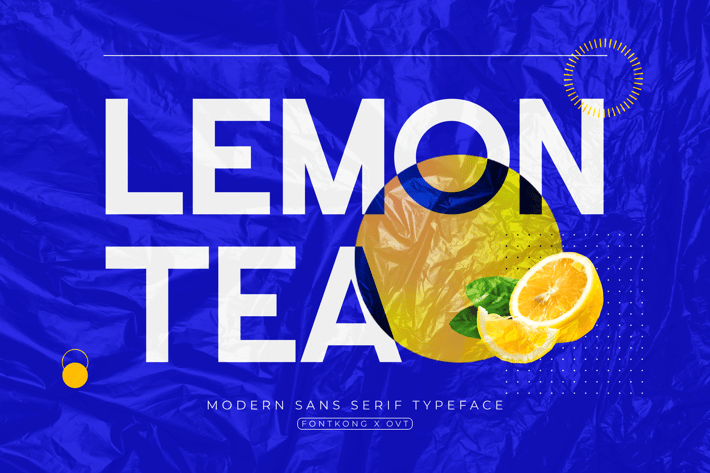
Lemon Tea - Modern Sans Serif Typeface
Introducing "Lemon Tea," a modern sans serif typeface that combines simplicity with a refreshing aesthetic. Perfect for designers seeking a clean and versatile font, Lemon Tea offers a sleek, contemporary design that enhances readability and adds a touch of sophistication to any project.
Ideal for a broad range of applications, Lemon Tea excels in creating professional logos, stylish branding, modern websites, and engaging social media graphics. Its straightforward and minimalist design ensures that it complements both digital and print media, providing a seamless and polished look.
Lemon Tea includes a complete set of uppercase and lowercase letters, numerals, punctuation marks, and special characters, ensuring comprehensive support for your creative projects. Its modern yet timeless appeal makes it a reliable choice for designers aiming to achieve a professional and refined aesthetic.
Revitalize your designs with the clean lines and crisp elegance of Lemon Tea, and let your work stand out with modern simplicity and style.
Introducing "Lemon Tea," a modern sans serif typeface that combines simplicity with a refreshing aesthetic. Perfect for designers seeking a clean and versatile font, Lemon Tea offers a sleek, contemporary design that enhances readability and adds a touch of sophistication to any project.
Ideal for a broad range of applications, Lemon Tea excels in creating professional logos, stylish branding, modern websites, and engaging social media graphics. Its straightforward and minimalist design ensures that it complements both digital and print media, providing a seamless and polished look.
Lemon Tea includes a complete set of uppercase and lowercase letters, numerals, punctuation marks, and special characters, ensuring comprehensive support for your creative projects. Its modern yet timeless appeal makes it a reliable choice for designers aiming to achieve a professional and refined aesthetic.
Revitalize your designs with the clean lines and crisp elegance of Lemon Tea, and let your work stand out with modern simplicity and style.